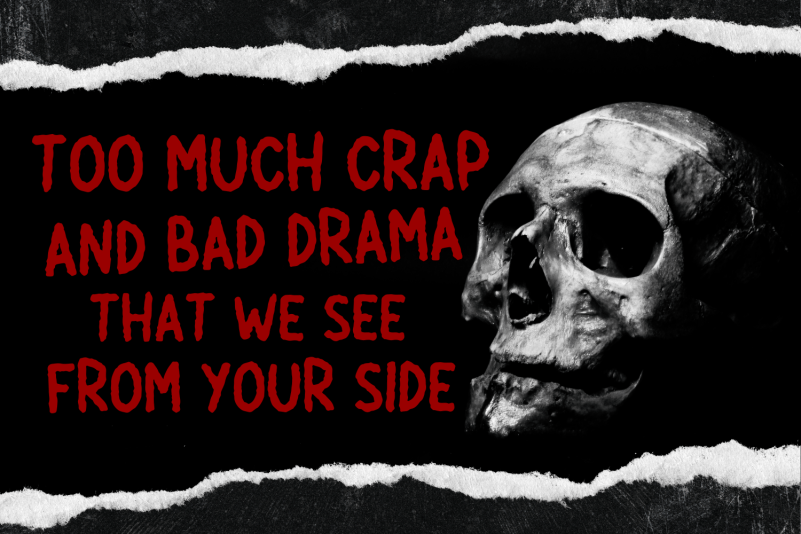
Wine Stoney Font
Wine Stoney Display Font is a cool, brushed and creepy display font. This font is suitable for designs such as t-shirts, sportswear, logos, advertisements, clothing, and more.